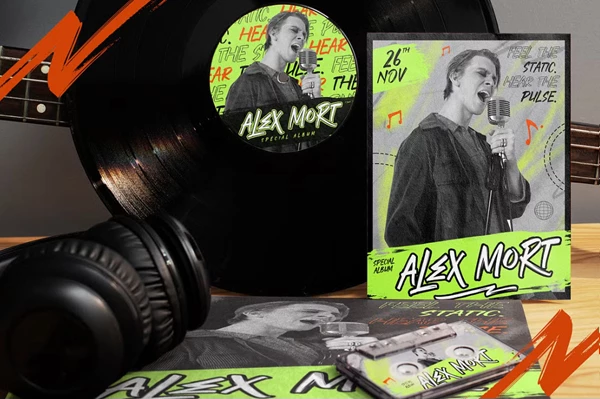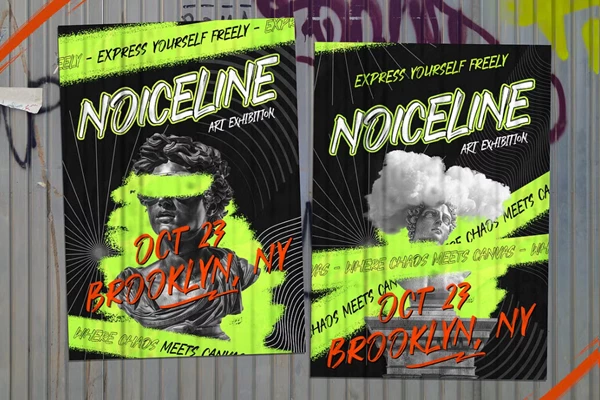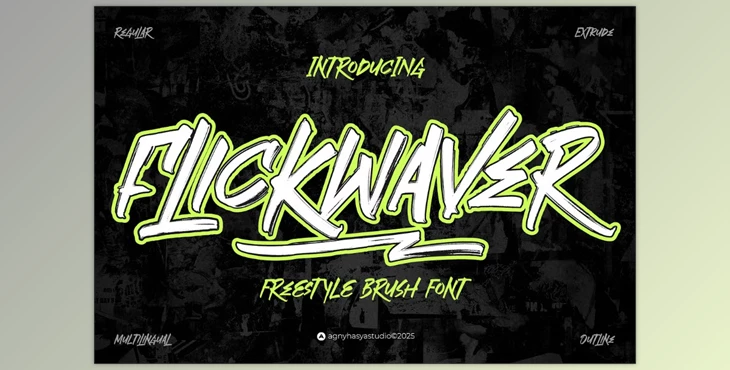
FlickWaver - Freestyle Brush Font:
FlickWaver is a brush font that's got a life of its own! A perfect combination of edgy urban texturing and the flick of a marker to paper, this modern typeface adds an exciting urban or playful twist to any design. FlickWaver has three styles to work with. Regular, Outline, Extrude. Combine them, layer them, and create endless possibilities.
With a fluid stroke that reads like hand-rendered, FlickWaver is ideal for anything from logos and apparel to branding, social, posters, and more. FlickWaver also includes multilingual support to expand your reach and offerings. No matter how you want your visuals to be perceived, FlickWaver has the perfect amount of daring artistry for you!